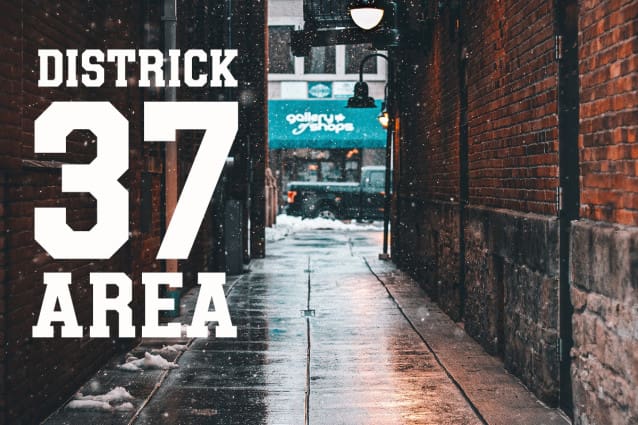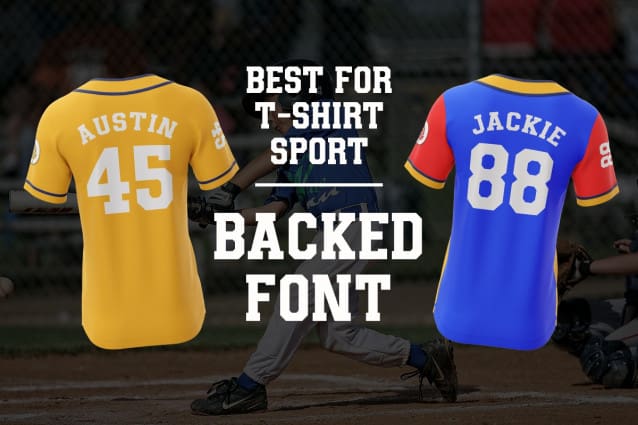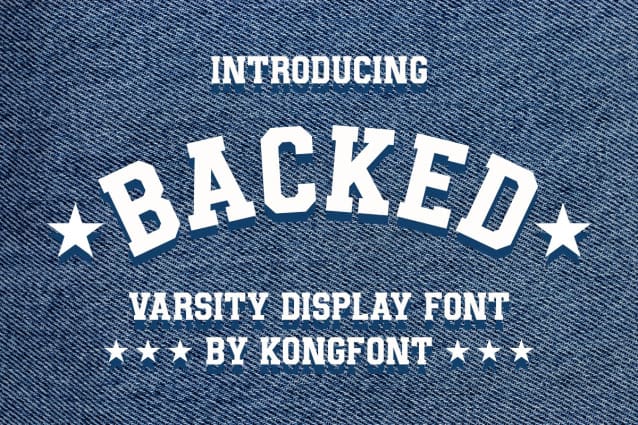
Backed Font
Backed Font – Modern Varsity Font is a font whose appearance looks familiar to people who like varsity fonts. This font comes with a simple and standard look. Not accompanied by any curves or additions, he is still charming and able to seduce every pair of eyes that see him. This font looked clear, and this font is legible.
Backed Font – Modern Varsity Font is the best font applied to event titles that use a sports theme, such as basketball and baseball. This font can contribute to building a good impression on everyone who sees it. Backed Font – Modern Varsity font can be used on match shirts, merchandise, stickers, and other clothing item design. This font is a modern type of font that is easy to combine with various things.
Apart from the things mentioned above, the Backed Font – Modern Varsity font can be used to write on brochures containing promotions and announcements of sporting events. This strong font character can make people know the brochure’s contents by looking at the title and the font used. Science books containing theories about sports and their various histories can also use this typeface to apply to covers. Backed modern varsity font can also be used as a poster containing motivational quotes at sports venues and matches.